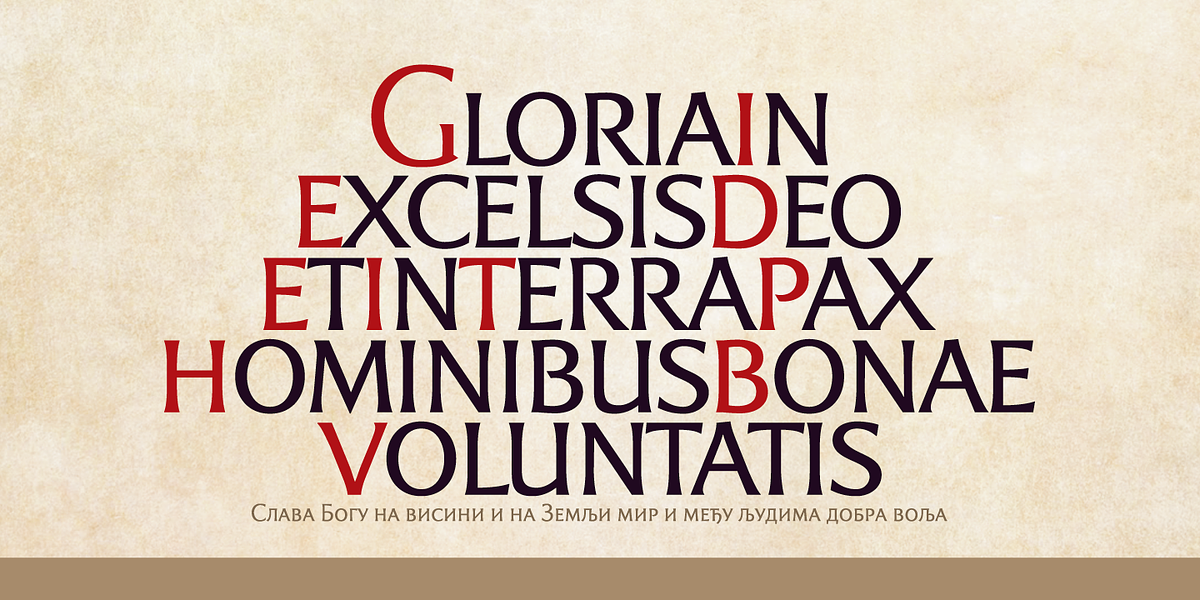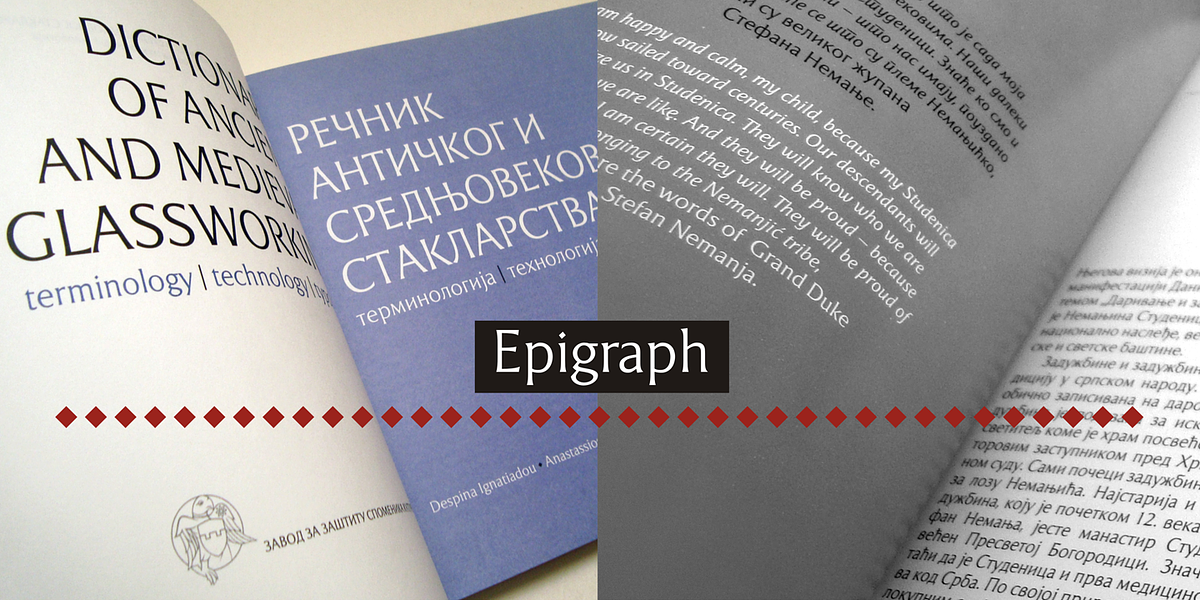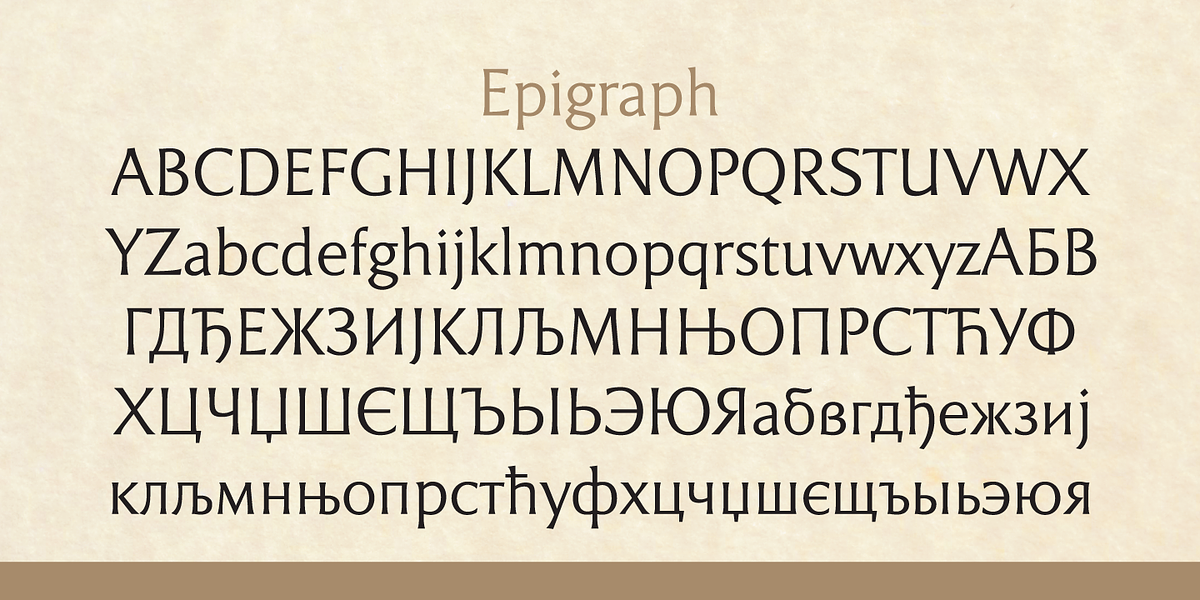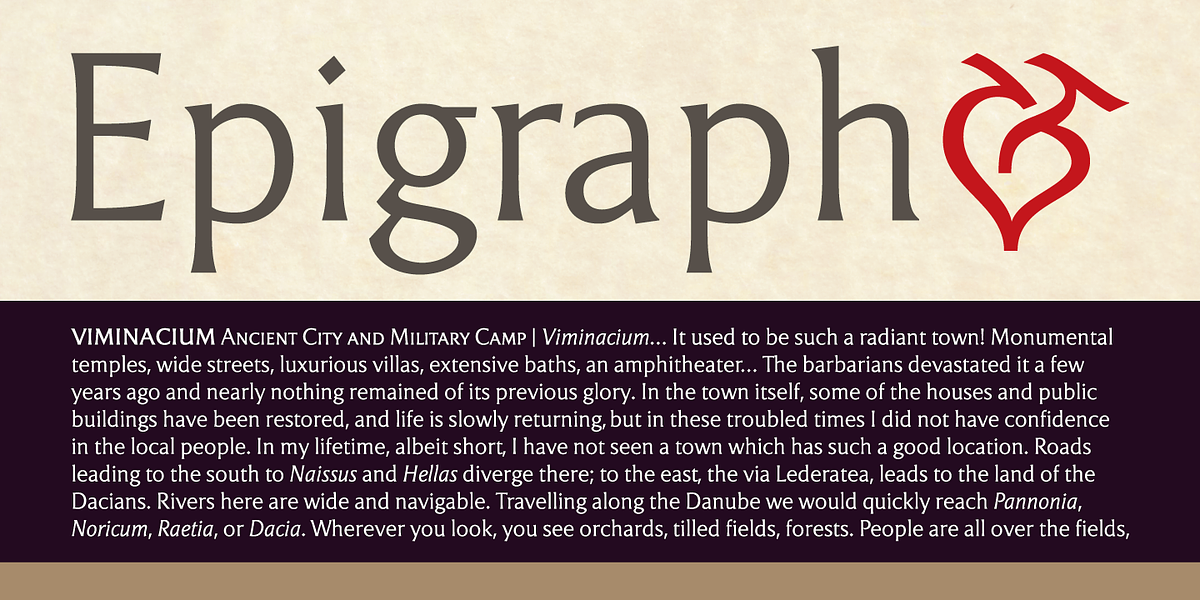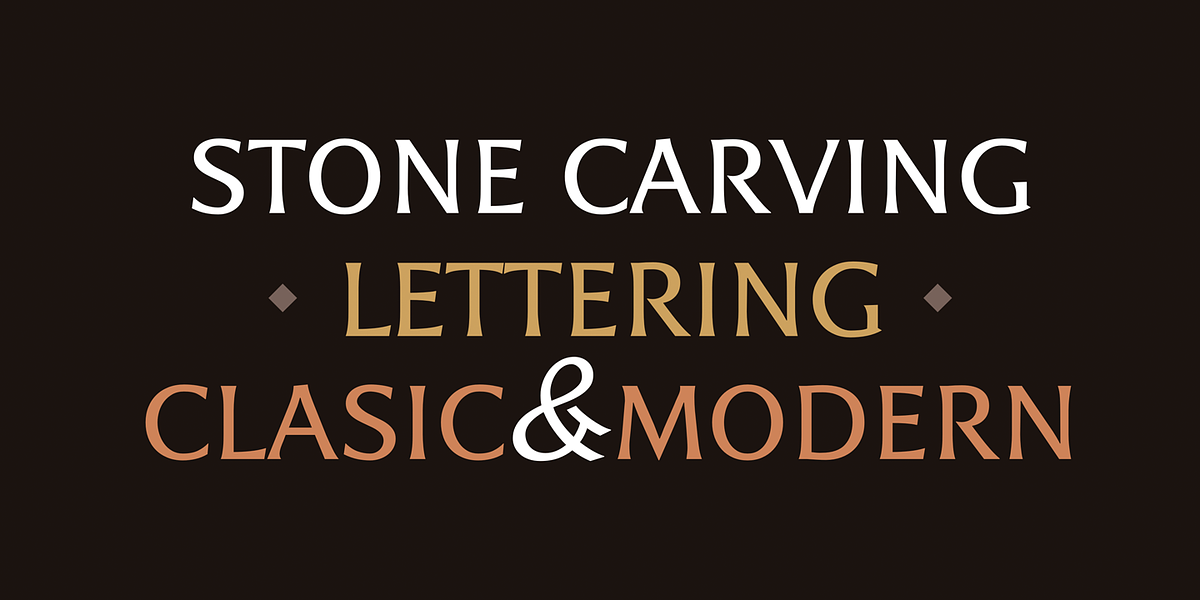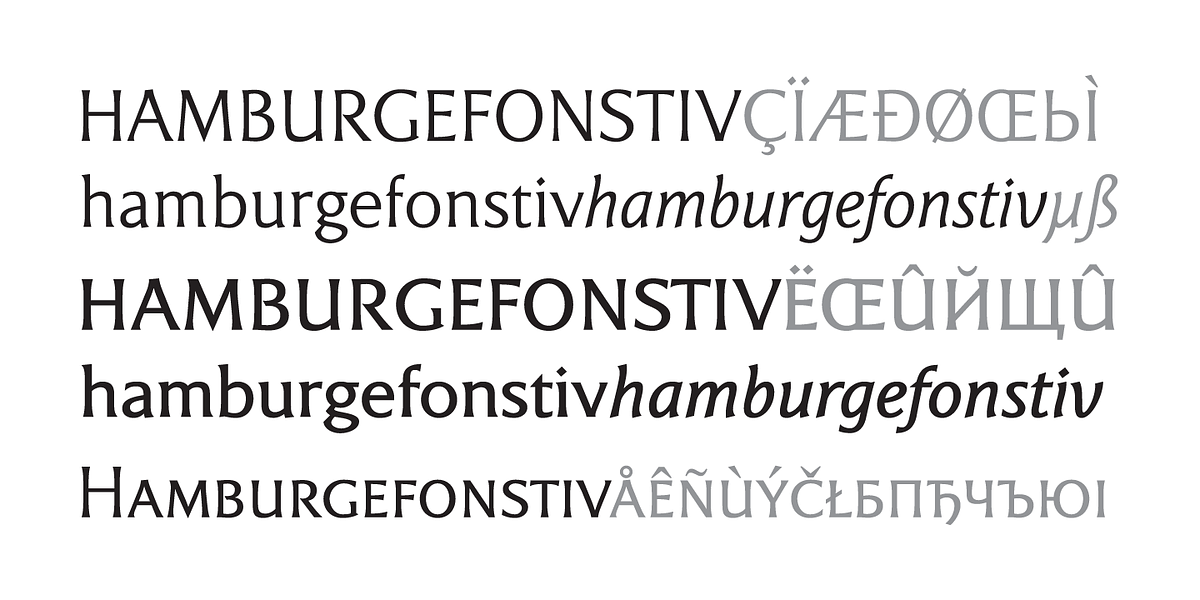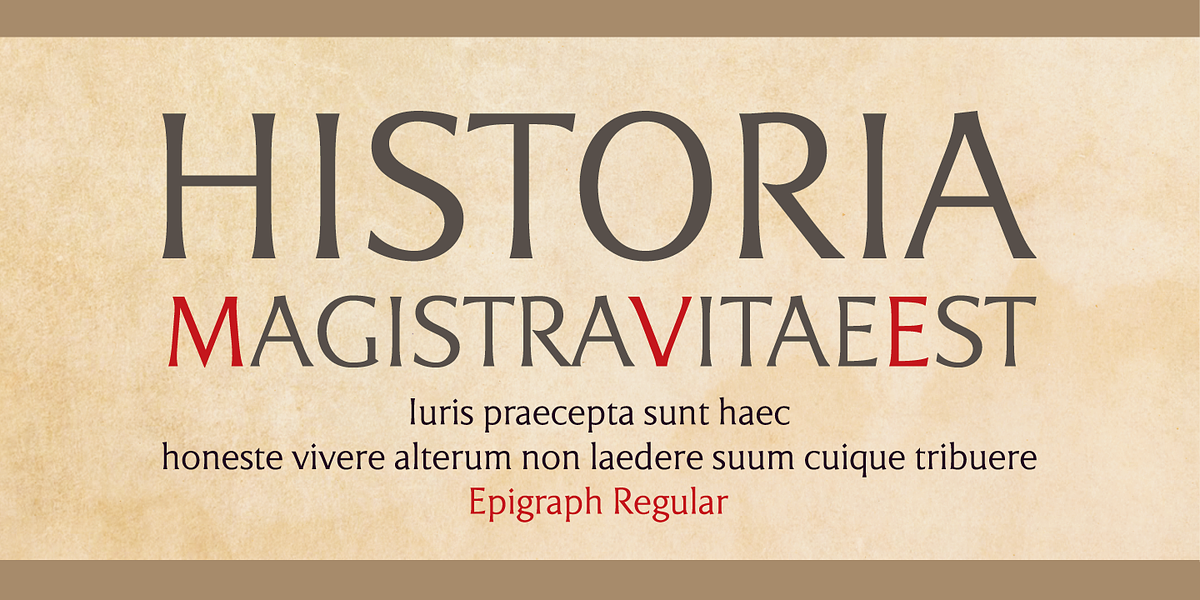
Epigraph
Epigraph is a serif font inspired by lapidary lettering. While it lacks traditional serifs, its design incorporates humanistic qualities and subtle hints of serifs, resulting in a balanced and elegant aesthetic. The font's moderate stroke contrast enhances readability, making it suitable for both body text and headlines. Its versatility extends to various applications, including brochures, catalogues, books, and other materials with historical or artistic content.